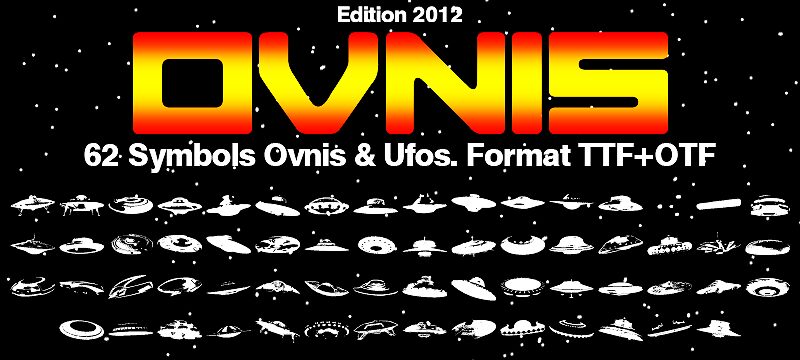
Ovnis by Carlos Matteoli is a free alien dingbat font devoted to flying saucers and strange craft. Its pictograms range from sleek, flattened discs to domed ships with windows, landing shapes, and irregular cutout details, giving the collection the look of vintage UFO sightings and pulp science fiction graphics.
A science fiction poster is the clearest home for these compact silhouettes, which can also supply icons for game interfaces, podcast artwork, and themed merchandise. Because each symbol reads as a complete spacecraft rather than ordinary lettering, the font can become a repeating pattern, an illustrated badge, or the central emblem for an extraterrestrial entertainment brand.